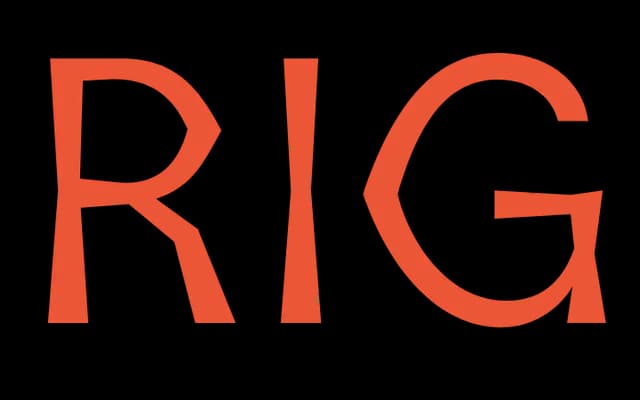
World Tour
A free single-weight display typeface with flared stems inspired by bell-bottom jeans and rounded counters that taper to sharp points.
Designed by Nur Jannah Suhaimi and released under an Open Font Licence, World Tour draws its visual character from the silhouette of bell-bottom jeans, translating that flare into the stems of each letter. Rounded counters taper to sharp terminals, creating an optical tension between soft and pointed forms. Available as a free download for both commercial and non-commercial use.
A single-weight open-source display typeface with flared stems and rounded counters tapering to sharp points, placing it firmly in the display category with a distinctive decorative character.